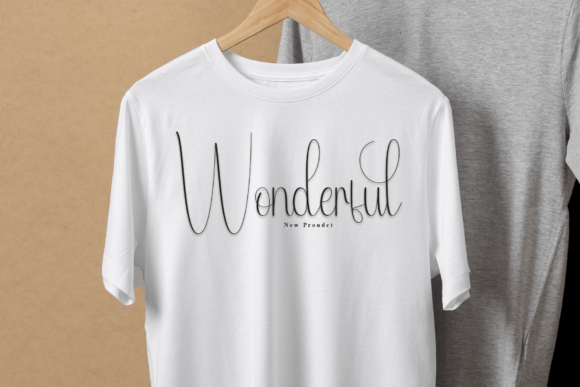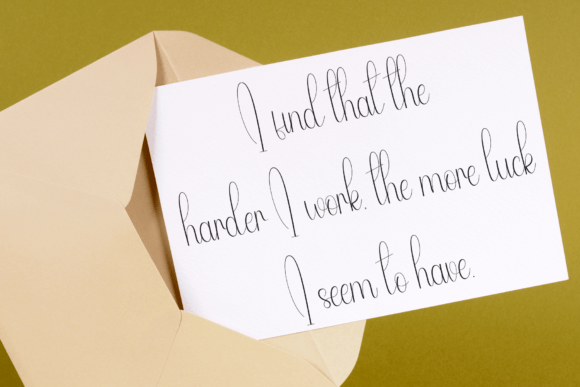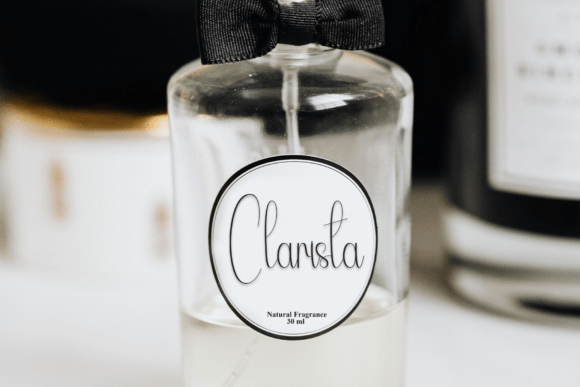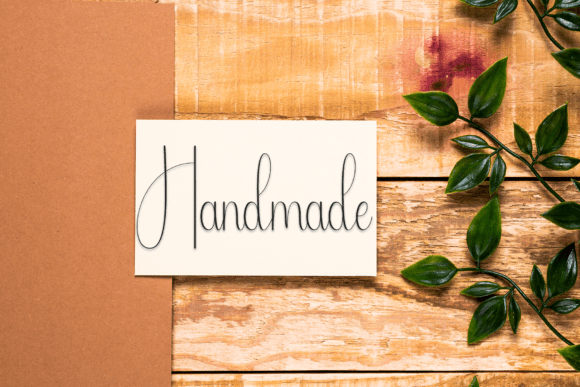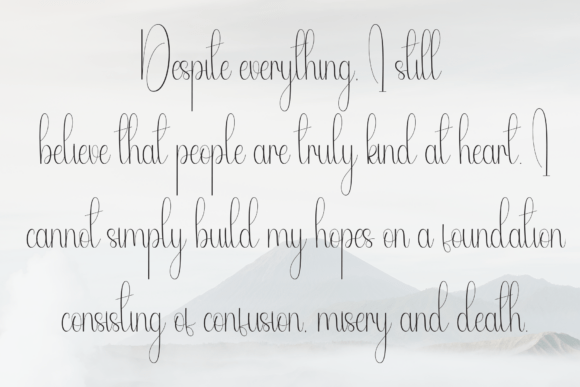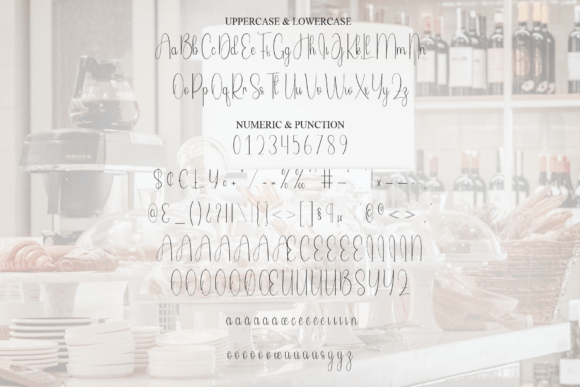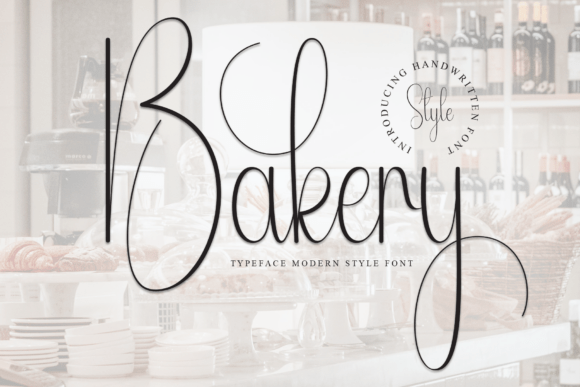
Bakery Font: Elevate Your Designs with Elegance and Fluidity
In the world of typography, few fonts manage to strike a balance between elegance, fluidity, and modernity. Bakery Font is one such exceptional typeface that embodies these qualities, making it a perfect choice for designers, crafters, and anyone looking to add a touch of sophistication to their projects. In this article, we’ll dive into the features, benefits, and uses of Bakery Font, and explore how it can elevate your designs to new heights.
The Charm of Bakery Font
Bakery Font is a stylish handwritten script font that exudes elegance and fluidity. Its smooth, flowing strokes create a natural and sophisticated feel, reminiscent of traditional calligraphy. The font’s design is characterized by a gentle, cursive flow, which gives it a unique and artistic charm. Whether you’re working on branding, invitations, or creative projects, Bakery Font is sure to add a personal touch that sets your design apart.
Key Features of Bakery Font
• Elegant and Fluid Design: Bakery Font boasts a smooth, flowing design that creates a natural and sophisticated feel.
• Handwritten Script Style: The font’s handwritten script style adds a personal, artistic touch to any design.
• Balanced Charm and Modernity: Bakery Font strikes a perfect balance between charm and modernity, making it suitable for a wide range of design projects.
• Versatile and Adaptable: The font is versatile and adaptable, making it perfect for various design applications, from branding and invitations to creative projects.
Benefits of Using Bakery Font
Using Bakery Font in your designs offers numerous benefits. Here are a few:
• Adds Sophistication and Elegance: Bakery Font adds a touch of sophistication and elegance to any design, making it perfect for high-end branding and luxury projects.
• Creates a Personal Connection: The font’s handwritten script style creates a personal connection with the reader, making it ideal for invitations, greeting cards, and other personal projects.
• Enhances Readability: Bakery Font’s smooth, flowing design enhances readability, making it easy to read and understand.
• Unique and Artistic: The font’s unique and artistic design sets it apart from other fonts, making it perfect for designers and crafters looking to add a creative touch to their projects.
Uses of Bakery Font
Bakery Font is a versatile typeface that can be used in various design applications. Here are a few ideas:
• Branding and Logo Design: Use Bakery Font to create elegant and sophisticated brand identities that stand out.
• Invitations and Greeting Cards: The font’s handwritten script style makes it perfect for creating personal and artistic invitations and greeting cards.
• Creative Projects: Bakery Font is ideal for creative projects, such as art journals, scrapbooking, and mixed media designs.
• Packaging and Product Design: Use the font to add a touch of elegance and sophistication to packaging and product designs.
Tips for Using Bakery Font Effectively
To get the most out of Bakery Font, here are a few tips:
• Use it Sparingly: Use Bakery Font sparingly to create emphasis and add a touch of elegance to your design.
• Experiment with Colors and Textures: Experiment with different colors and textures to add depth and interest to your design.
• Pair it with Other Fonts: Pair Bakery Font with other fonts to create a unique and visually appealing design.
• Pay Attention to Kerning and Spacing: Pay attention to kerning and spacing to ensure that the font looks elegant and sophisticated.
Bakery Font is a stylish handwritten script font that radiates elegance and fluidity. Its smooth, flowing strokes create a natural and sophisticated feel, perfect for branding, invitations, and creative projects. With its balanced charm and modernity, this typeface adds a personal, artistic touch to any design. Whether you’re a designer, crafter, or DIY enthusiast, Bakery Font is sure to elevate your designs to new heights. So why wait? Give Bakery Font a try today and experience the power of elegant typography!